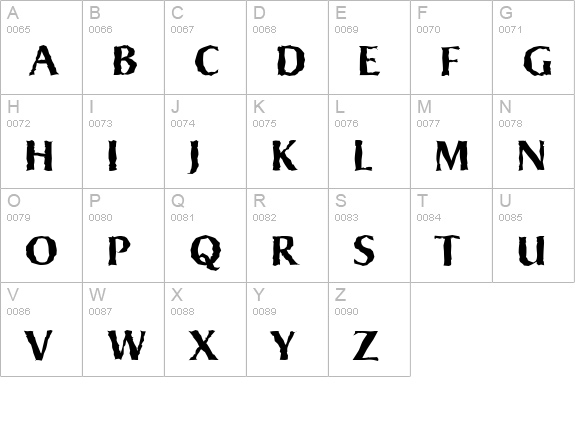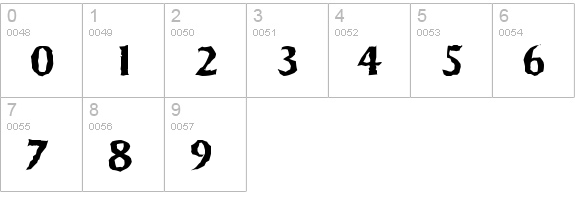
SigvarRandom-Bold Font Details
SigvarRandom-Bold is a strong, high-contrast variant in the SigvarRandom typeface family \xE2\x80\x94 well suited to headlines, attention-grabbing titles, and strong calls-to-action.
SigvarRandom-Bold is a visually striking and modern typeface that exudes confidence and boldness. With its unique and distinctive design, this font is perfect for making a statement in any project. The strong, thick lines of SigvarRandom-Bold make it ideal for headlines, titles, and other attention-grabbing text. What sets SigvarRandom-Bold apart is its versatility and ability to stand out in a variety of design contexts. Whether you're working on a logo, poster, website, or any other creative project, this font will add a touch of sophistication and flair. The best part is that SigvarRandom-Bold is available for free download at FontsMarket.com. So, you can elevate your designs with this stylish and impactful font without breaking the bank. Don't miss out on the opportunity to enhance your projects with SigvarRandom-Bold today!